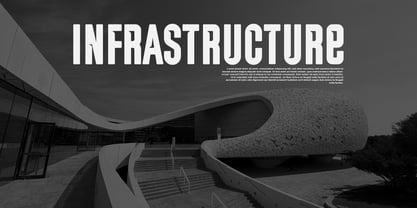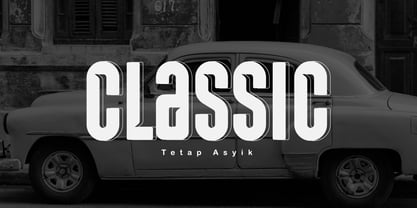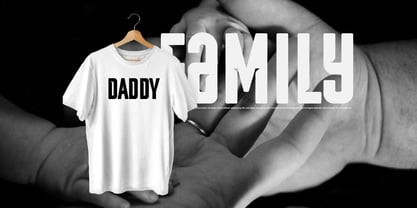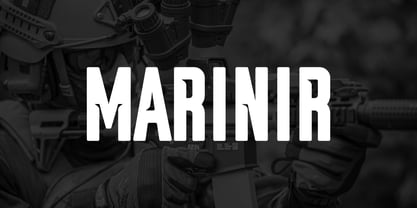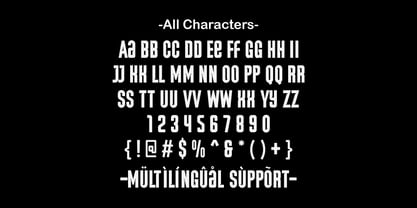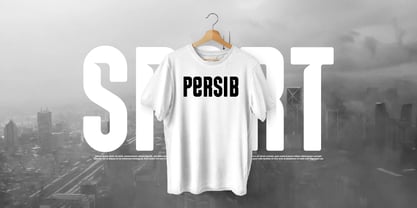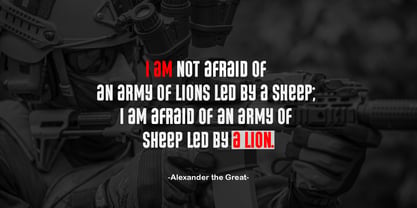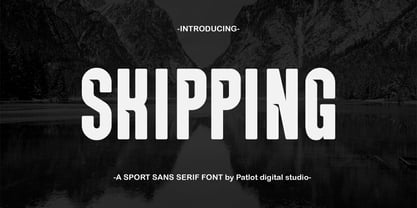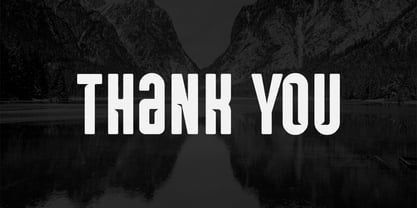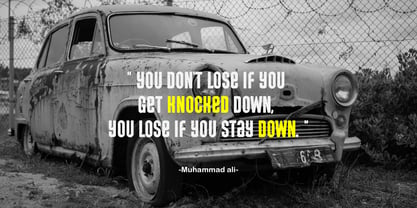
Skipping Sans
by Patlot Digital Studio
The Skipping Sans Font Family was designed by Gugun Gunawan and published by Patlot Digital Studio. Skipping Sans contains 1 styles. More about this family
Skipping is a bold, highly condensed sans serif font designed for impactful typography. With its tall structure, it's perfect for sports, jerseys, modern posters, album covers, branding, and high-impact advertising. Its tall, narrow shape dominates the space, ensuring your message is not only seen but also felt. This font is ideal for designers seeking a high-impact, contemporary, and professional aesthetic.
Designers: Gugun Gunawan
Foundry: Patlot Digital Studio
Patlot Digital Studio was founded in 2022 and is managed by Gugun Gunawan. I love drawing letters. I want to continue developing my creativity and using my passion to provide greater benefits for myself and the design community. I founded Patlot Digital Studio to help designers choose their projects. I create handwritten fonts, script fonts, and display fonts. Now I pursue my new passion full-time from my home studio.